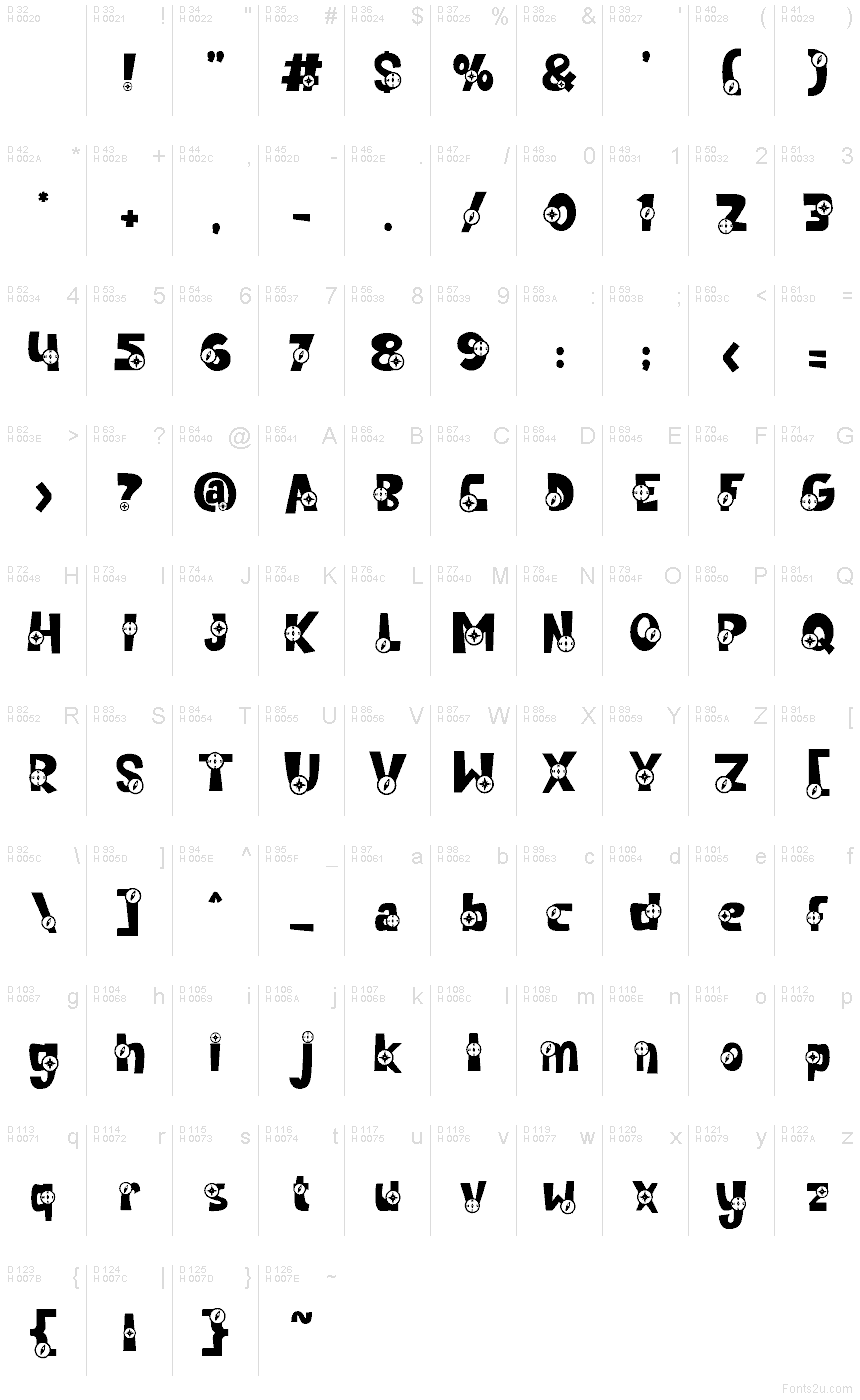
Cedar Heaven Compass
Cedar Heaven Compass font is a free display decorative typeface with an artistic flair from PutraCetol Studio. Each character consists of contrasting curves, pointed edges, and large swirls that create a whimsical overall look. It has a retro vibe because of the inclusion of some elements with centrally placed artistic decorations.
The best use cases include posters, event invitations, creative party cards, vintage art pieces, album covers, and logos for music bands among many others. The bold font can serve any design project that needs to have a prominent title or logo with an interesting look.